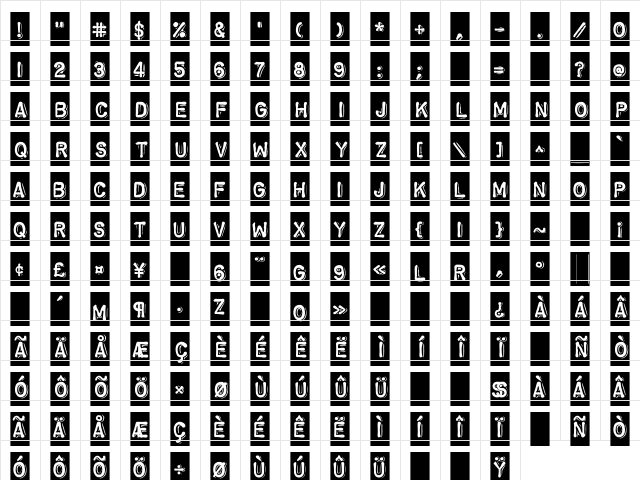
Complete ChromosomeReversed Heavy glyph index. Displaying only characters natively supported by ChromosomeReversed Heavy font.
ChromosomeReversed is a composed and adaptable typeface that performs quietly and consistently across a wide range of design contexts.